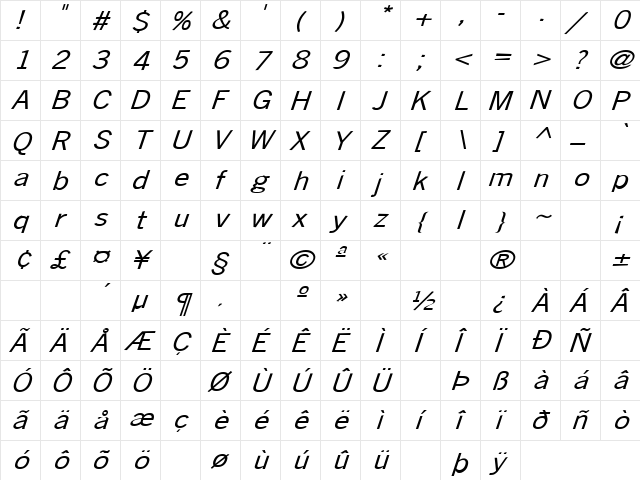
Breakdown 10 Italic
Design Context for Breakdown 10 Typeface
Breakdown 10 takes a measured approach to typography — its balanced proportions and neutral character make it a reliable workhorse for both digital and print work. Its italic angle brings a sense of urgency and motion to the letterforms.
Pro Tip: Try Breakdown 10 for annotation and caption copy alongside an upright companion — the contrast in angle creates a dynamic but ordered typographic system.